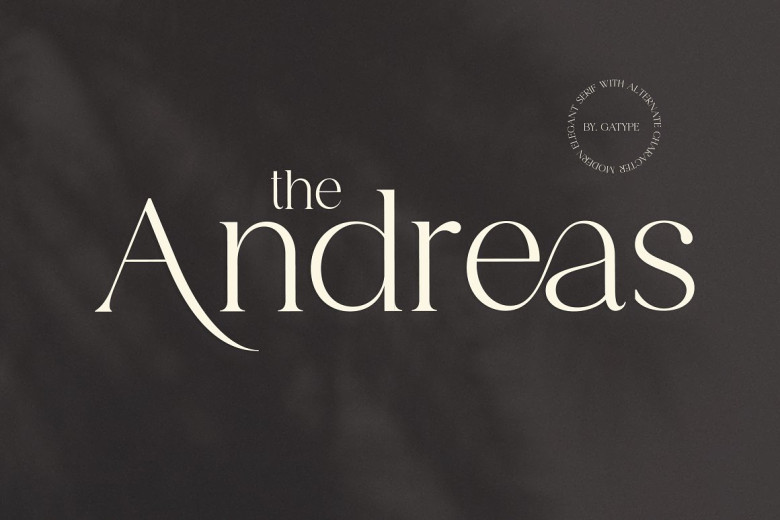
Andreas Font
Andreas Serif Font is ideal for branding, poster design, t-shirts, invitation designs, and kids designs, and editorial design projects. Andreas has over 400 glyphs, including ligatures, and Open Type features enable style sets, character variants, starting, and ending forms, and multilingual support.
Andreas Serif Font